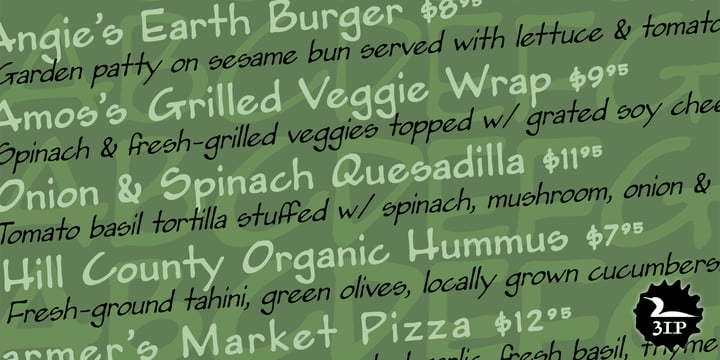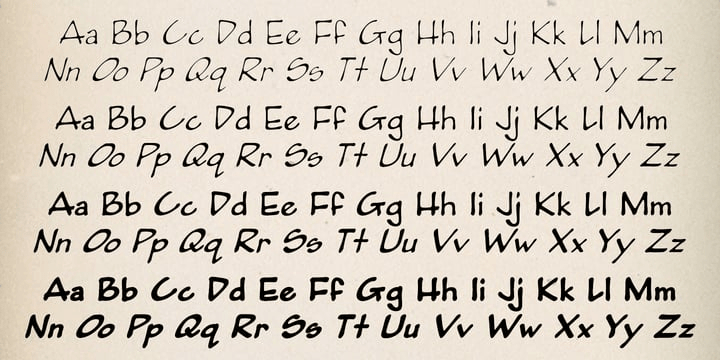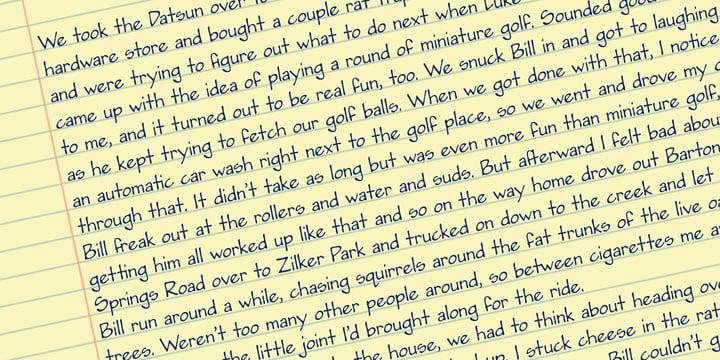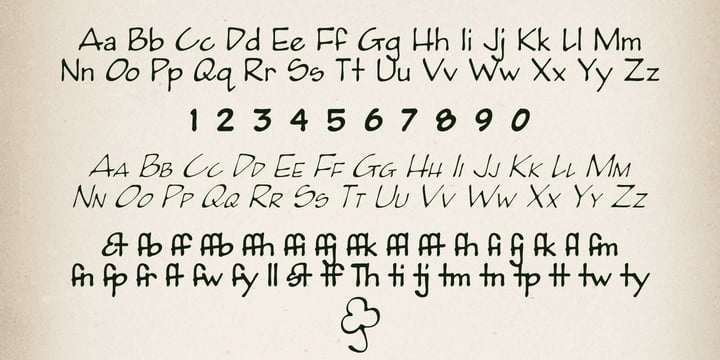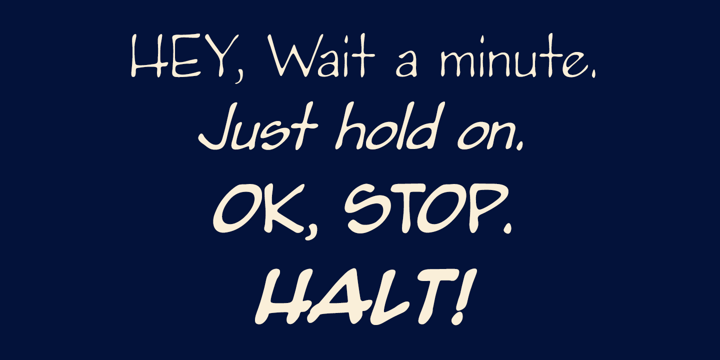
Pumpkinseed
The tale of Pumpkinseed began with a bit of hand-printing I noticed on the dinner menu at a local restaurant. I took a menu home for future reference.
Several months later, some similar hand-lettering on another dinner menu caught my eye. I became a sort of connoisseur of hand-done menu lettering.
After tweaking and adjusting a few of these menu-inspired (uppercase) characters, I placed them -- along with some other designs -- in an online Type in Progress survey. They won. So I finished the caps, drew out the lower case from scratch, created three weights and oblique styles.
The result: Pumpkinseed, a full-featured casual hand-lettering face. Comes in Light, Medium, and Heavy.